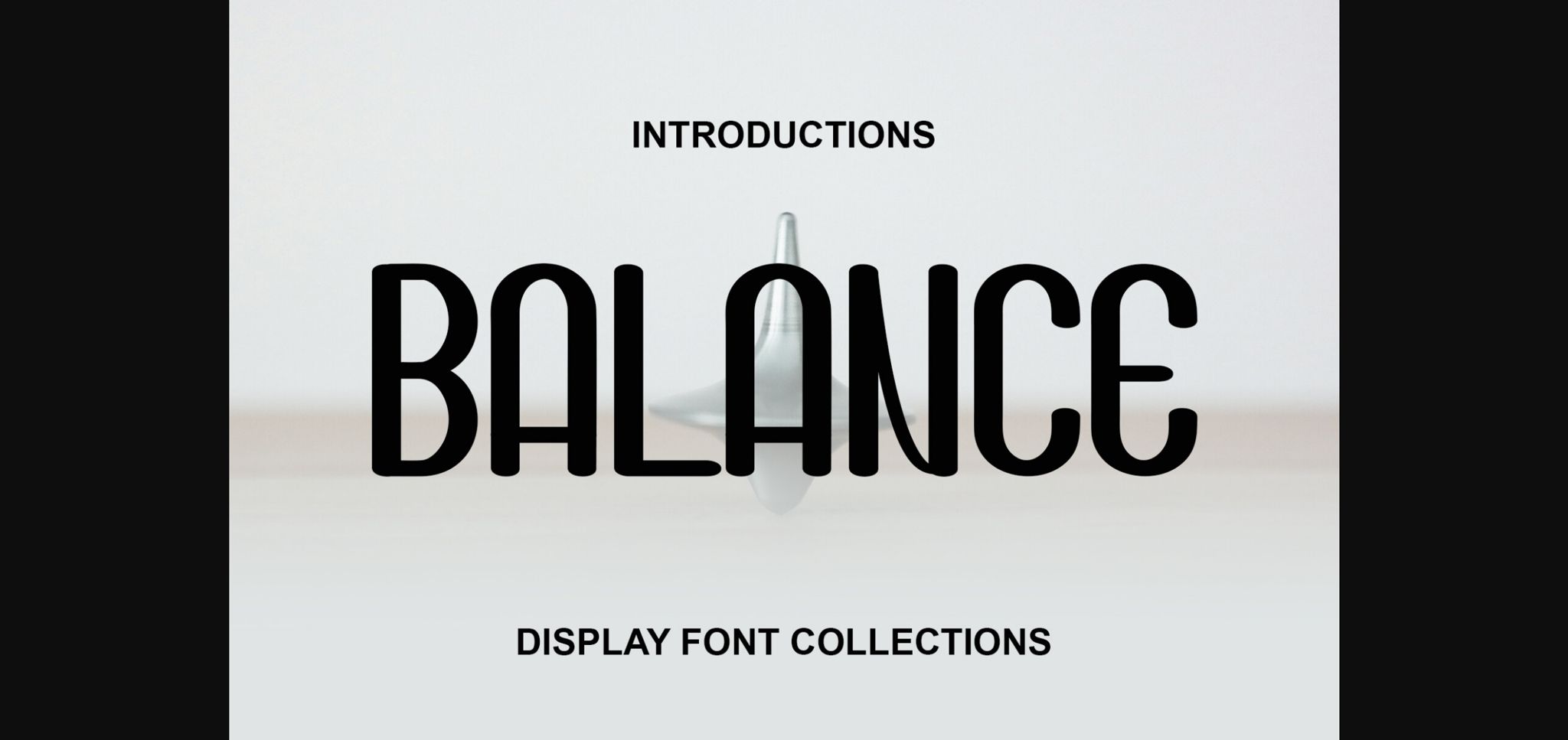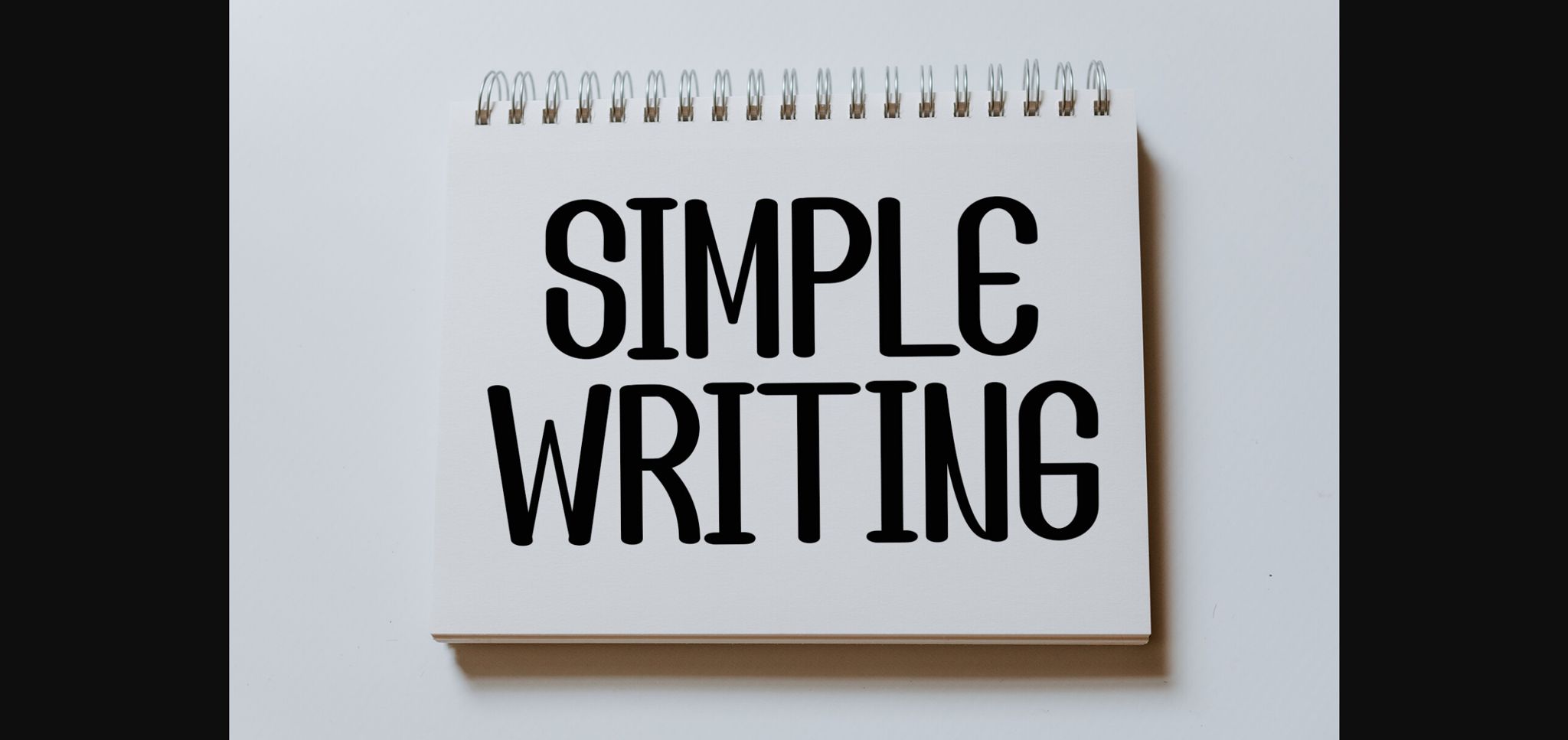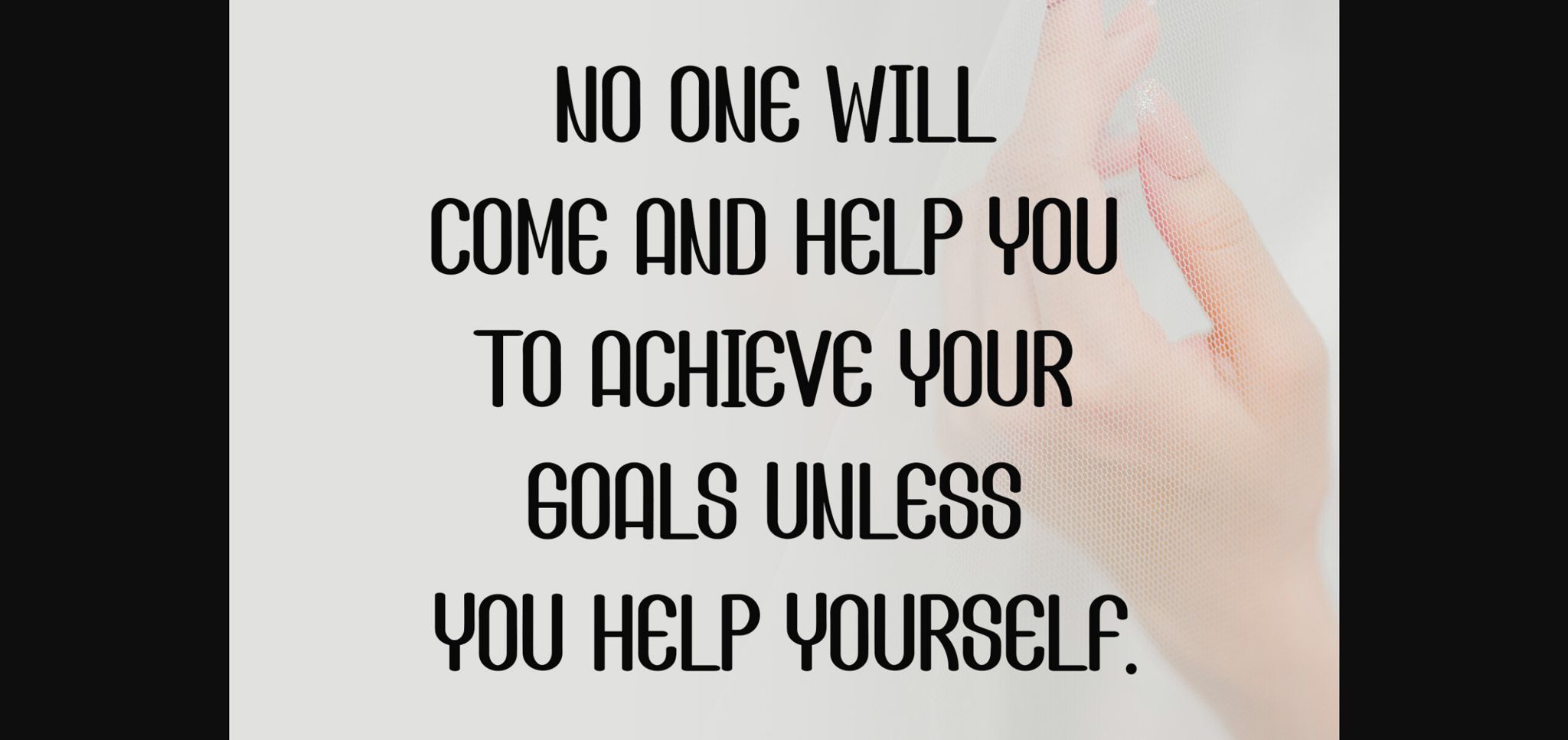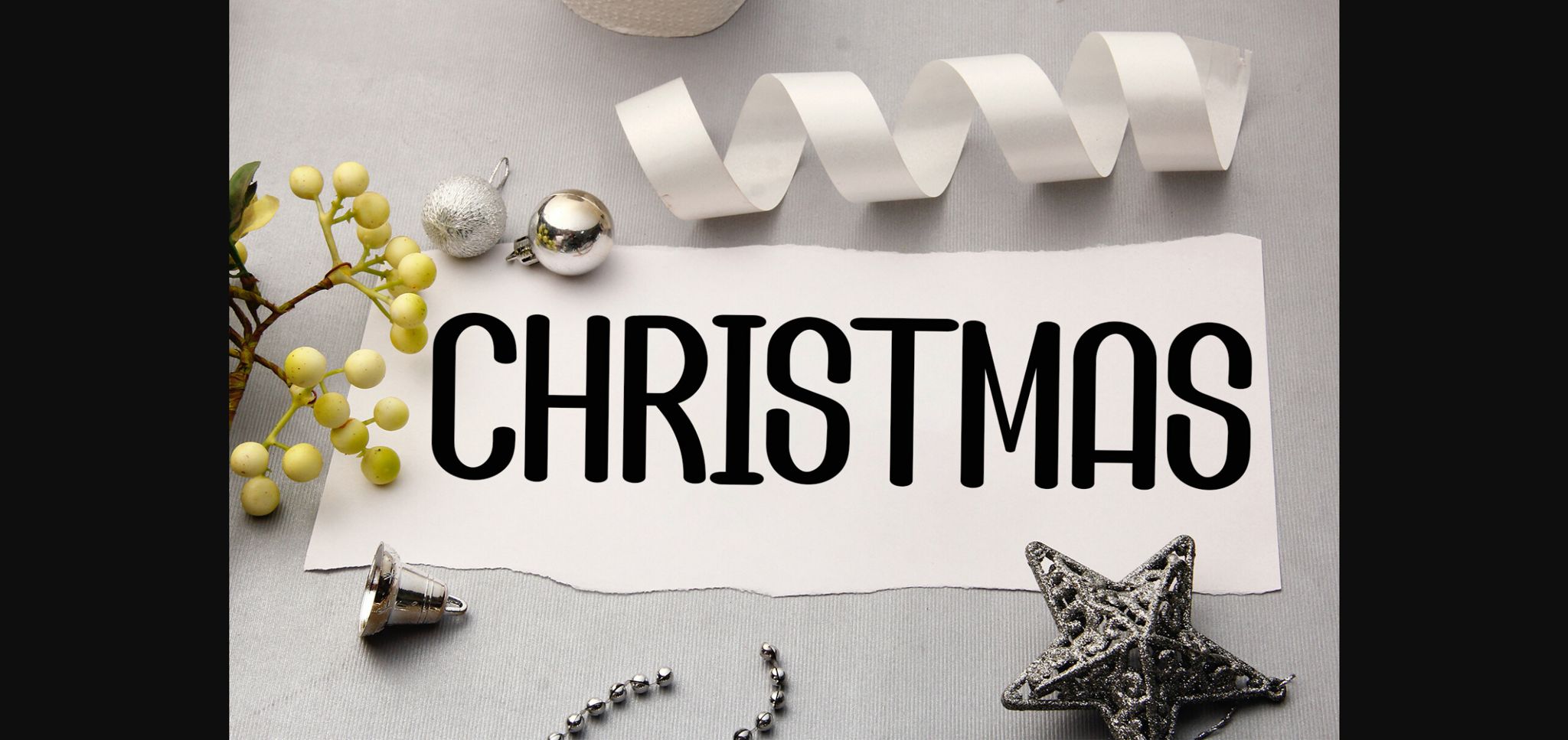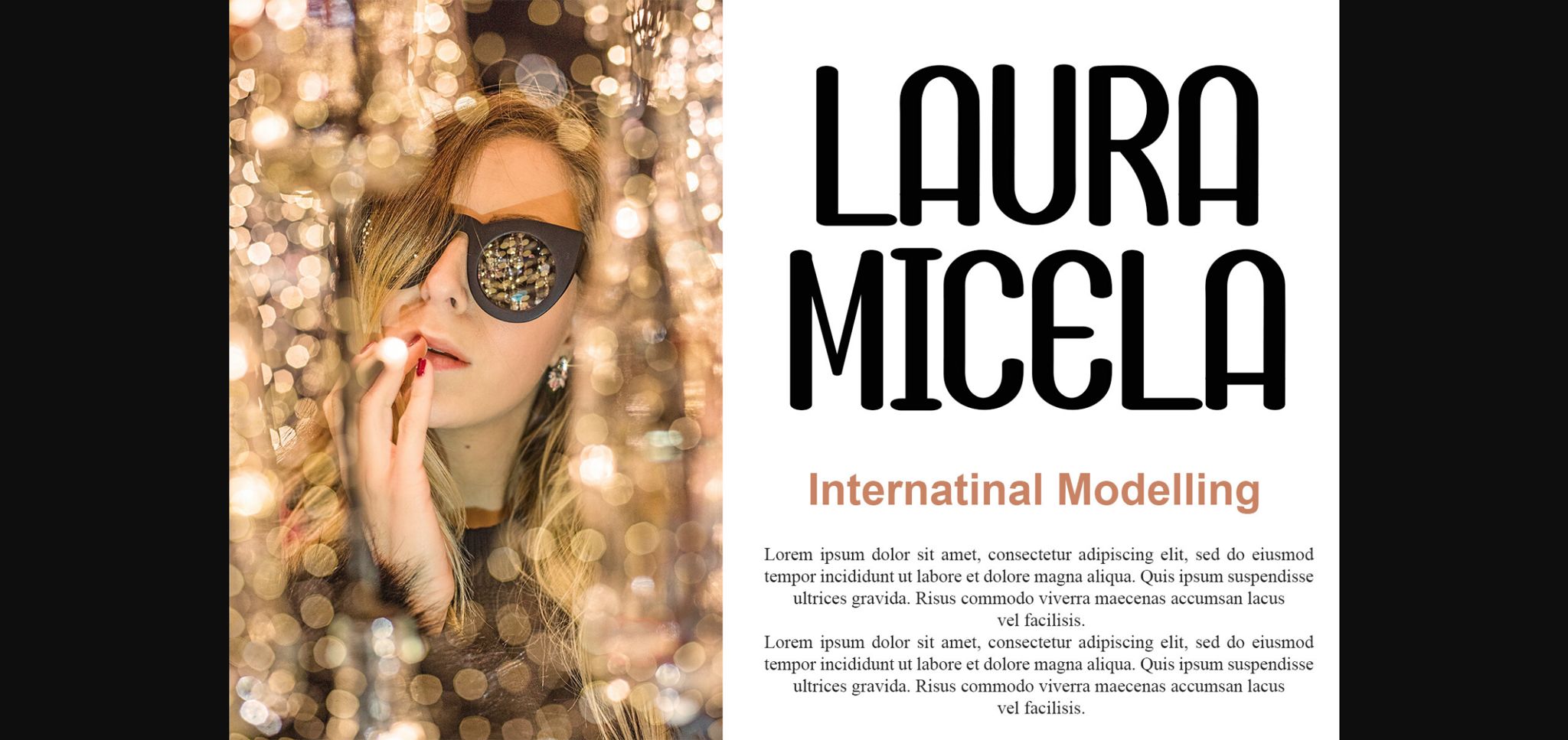
About Balance Font
Dive into the captivating world of typography with Balance, a whimsically artistic and delightfully playful sans-serif typeface tailored especially for the imagination of crafters. Seamlessly infuse Balance into your innovative projects and observe how it effortlessly brings your creative concepts to life with an infectious energy!